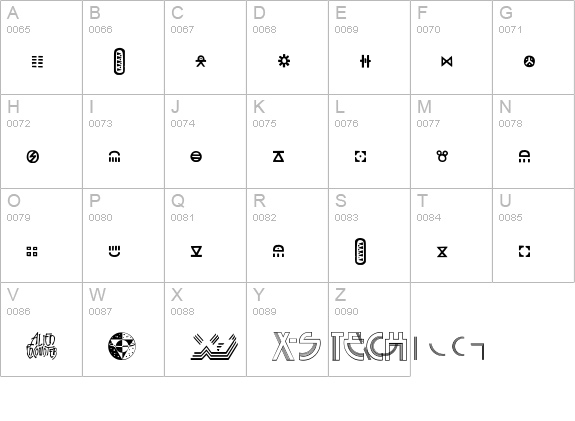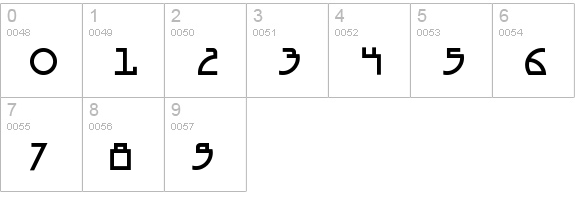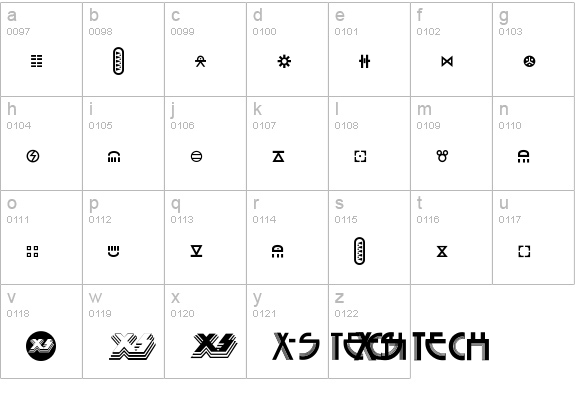
Seized X-S Font Details
The Seized X-S font is a striking and captivating typeface that exudes a sense of power and dynamism. Its sharp edges and bold lines give it a rebellious and edgy appearance, making it perfect for grabbing attention and making a statement. This font is meticulously designed, with every letter crafted to perfection. The distinct x-shaped elements in each character add a unique touch, setting it apart from other fonts. Whether used for headlines, titles, or logos, Seized X-S brings a modern and cutting-edge feel to any design project. What makes this font even more remarkable is that it is freely available to download at FontsMarket.com. Now, designers and creatives can easily access this exceptional font and incorporate it into their work without any cost. It offers the flexibility and versatility needed to create stunning visuals without breaking the bank. Seized X-S is not just a font; it is a powerful tool that empowers designers to unleash their creativity and make a bold statement. Its sleek and contemporary style is perfect for a wide range of projects, from advertising campaigns and branding to social media graphics and website design. With Seized X-S, your designs will stand out from the crowd, capturing attention and leaving a lasting impression. So, why wait? Download this incredible font for free now at FontsMarket.com and take your design game to the next level.